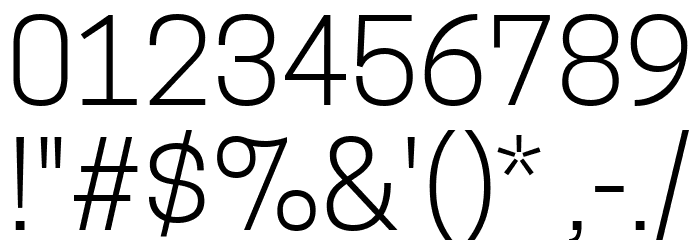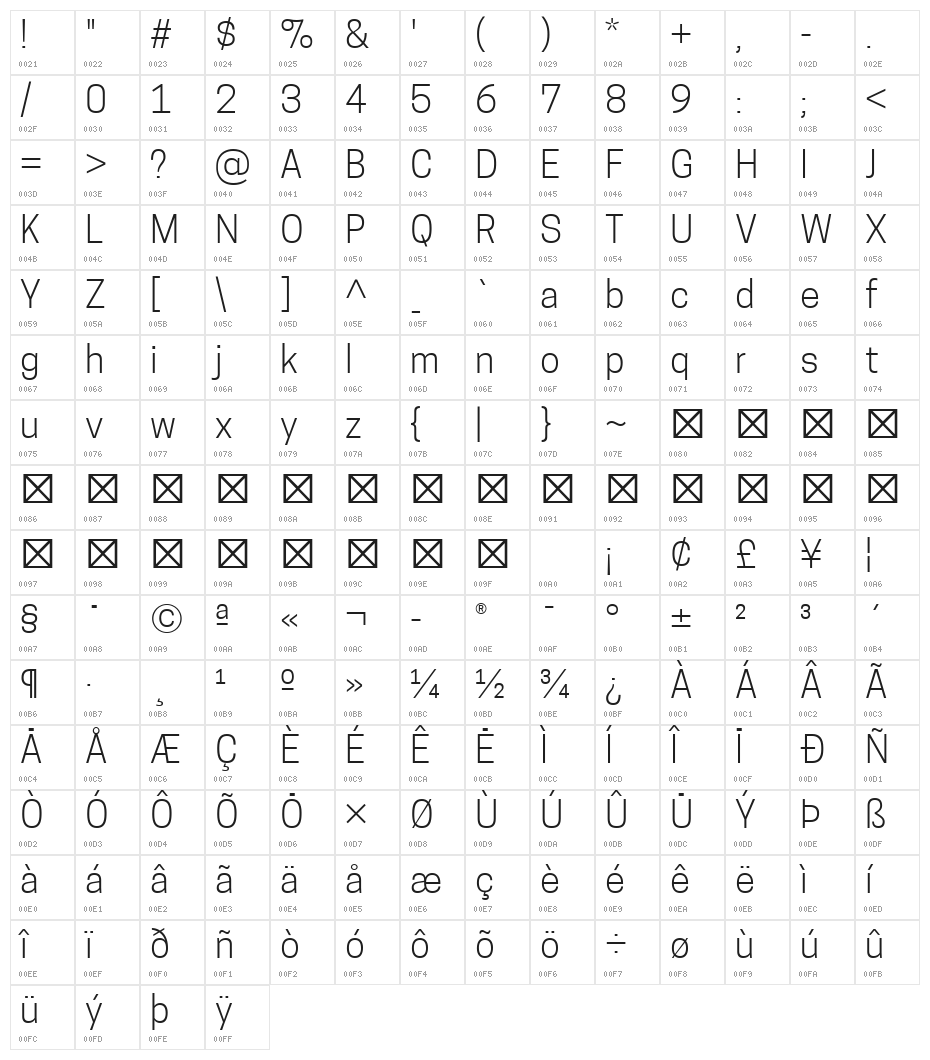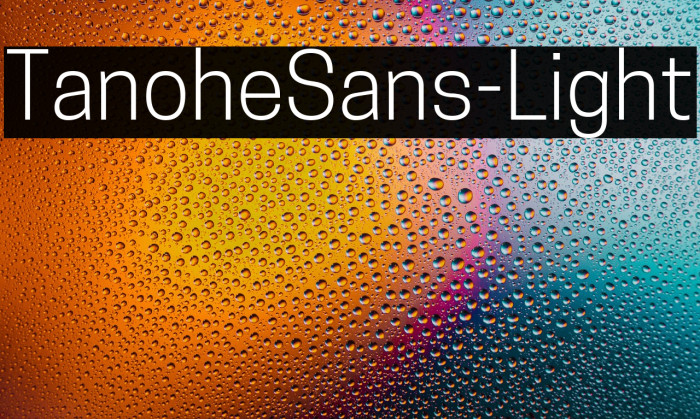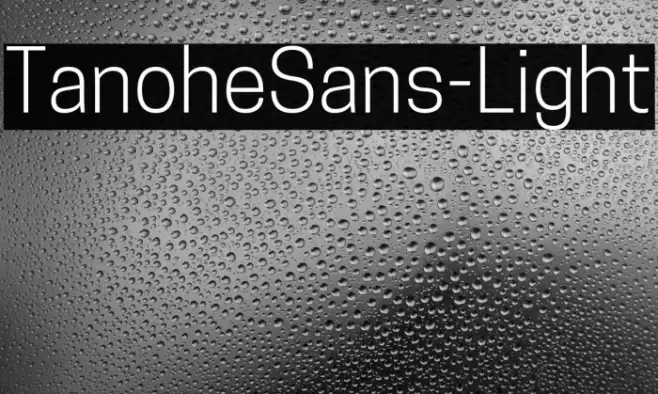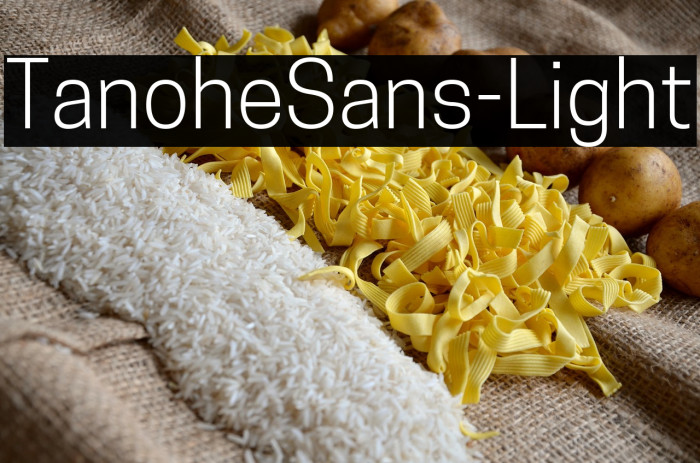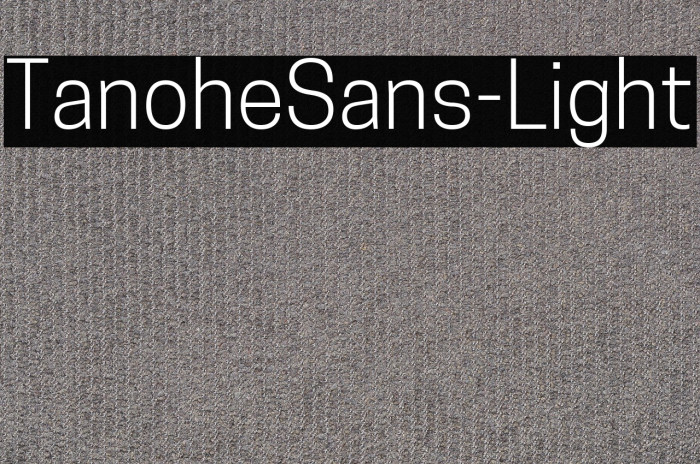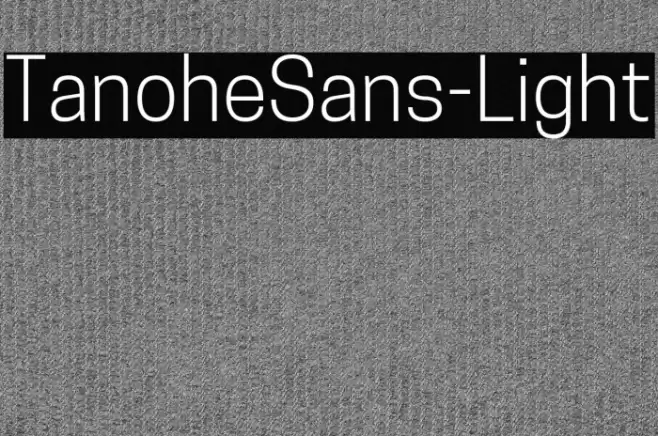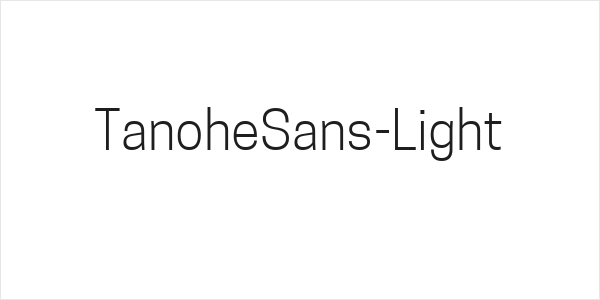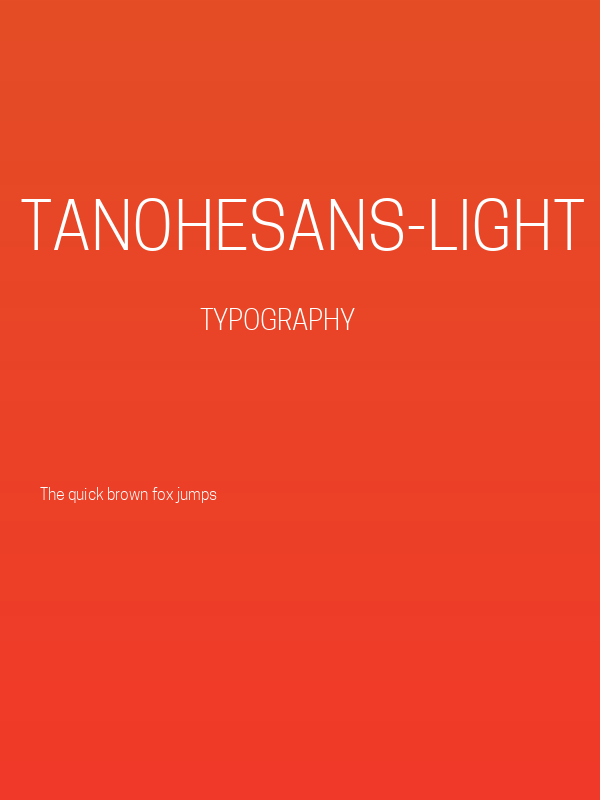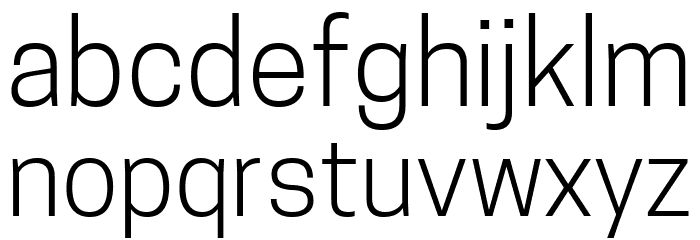
TanoheSans-Light Font
TanoheSans-Light Description
This font features a clean and modern sans-serif style with a light weight, making it ideal for minimalist designs. The characters are evenly spaced with a normal width, providing excellent readability. The uppercase and lowercase letters maintain a consistent height and stroke width, contributing to a harmonious appearance. The numerals are clear and distinct, while the special characters are well-defined, ensuring versatility in various design contexts. The overall aesthetic is sleek and contemporary, suitable for both digital and print media.